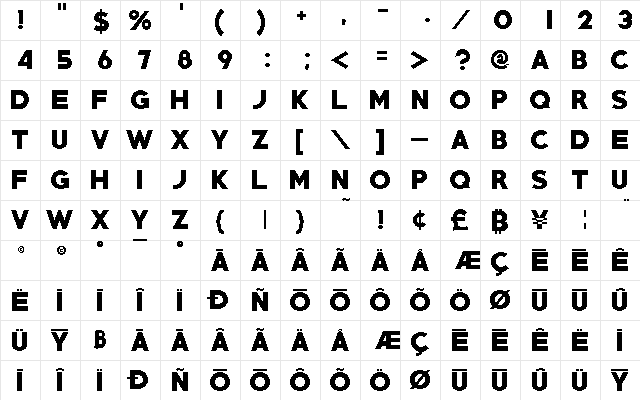
PRIMETIME Regular
| Foundry | Hypefonts |
| Designer | Guilhem GRECO |
Design Context for PRIMETIME Typeface
PRIMETIME offers clean, dependable letterforms without strong stylistic allegiance, making it a practical choice for designers who need flexibility.